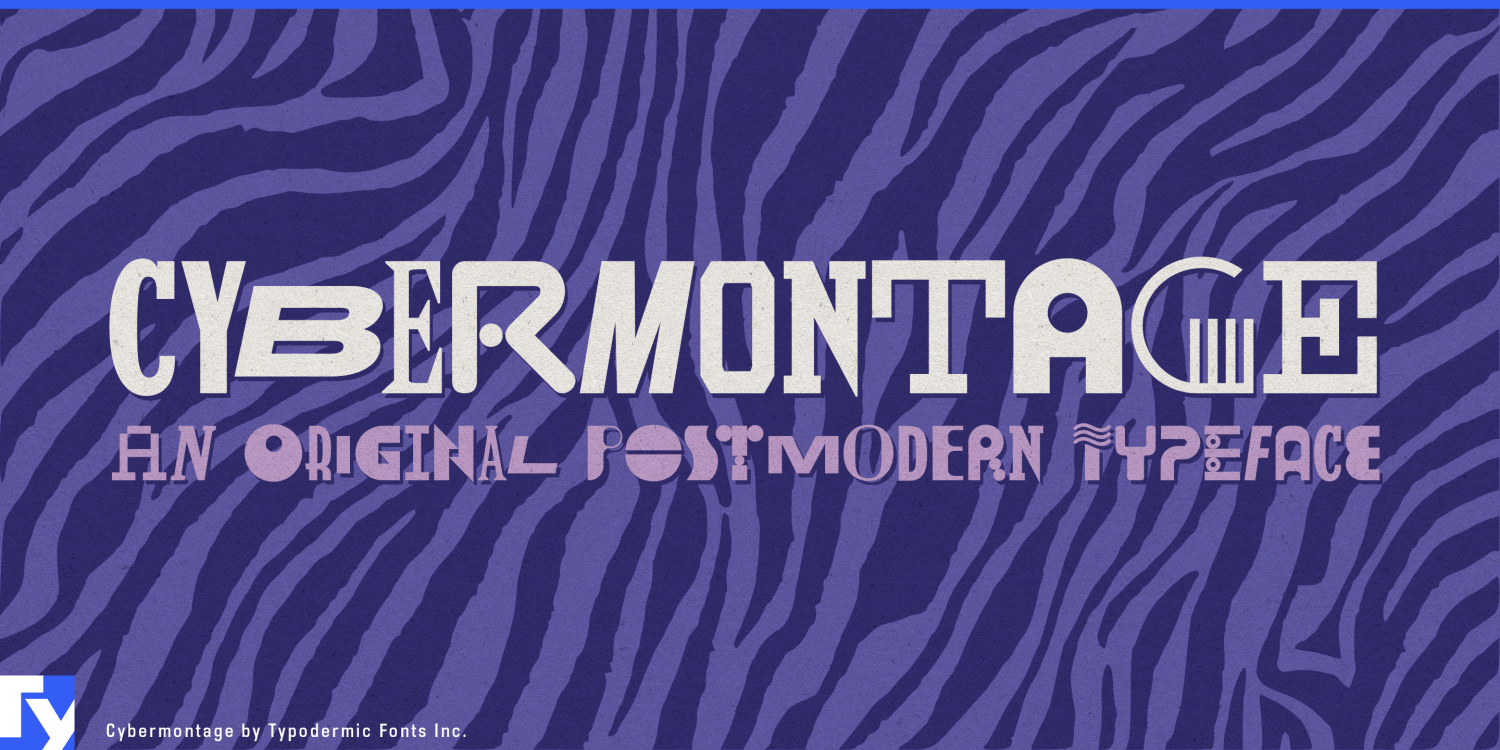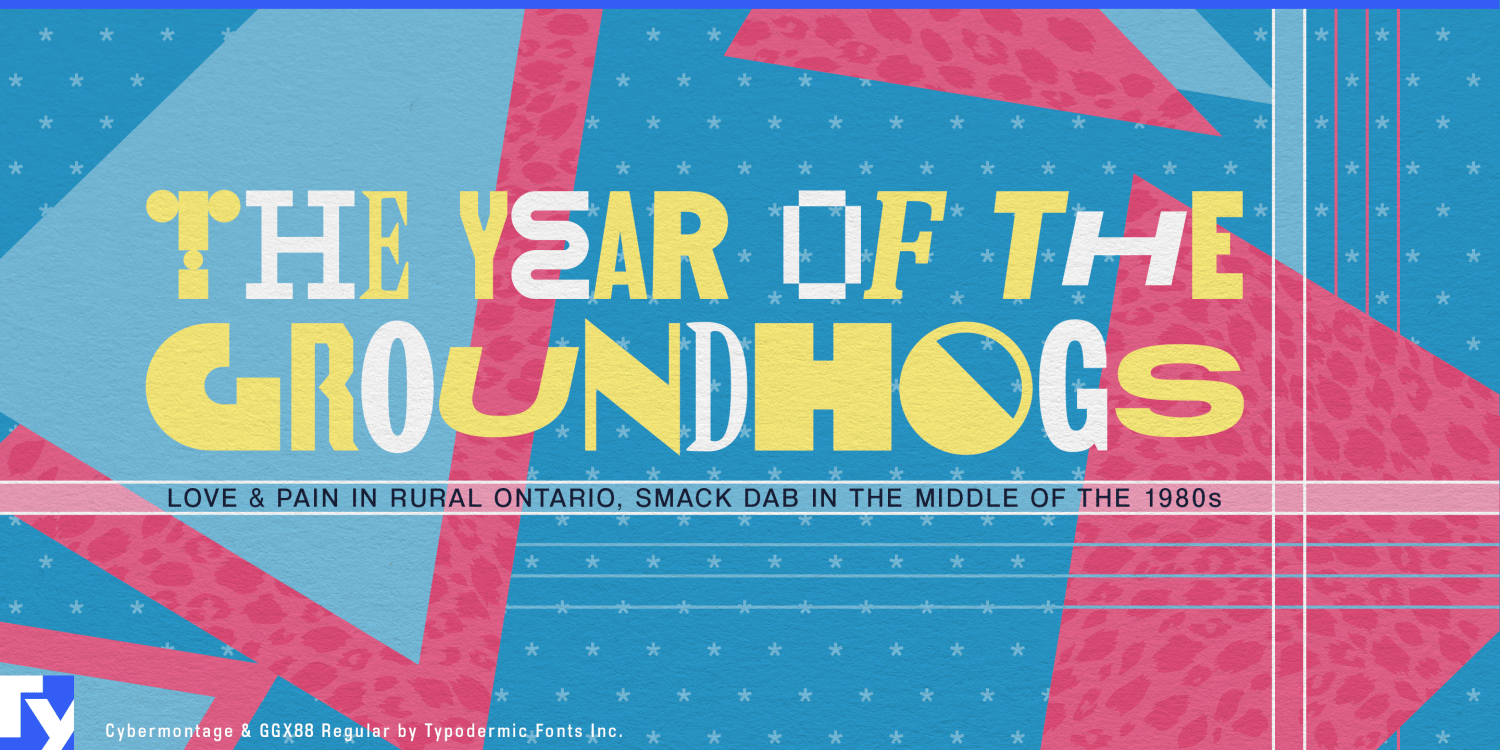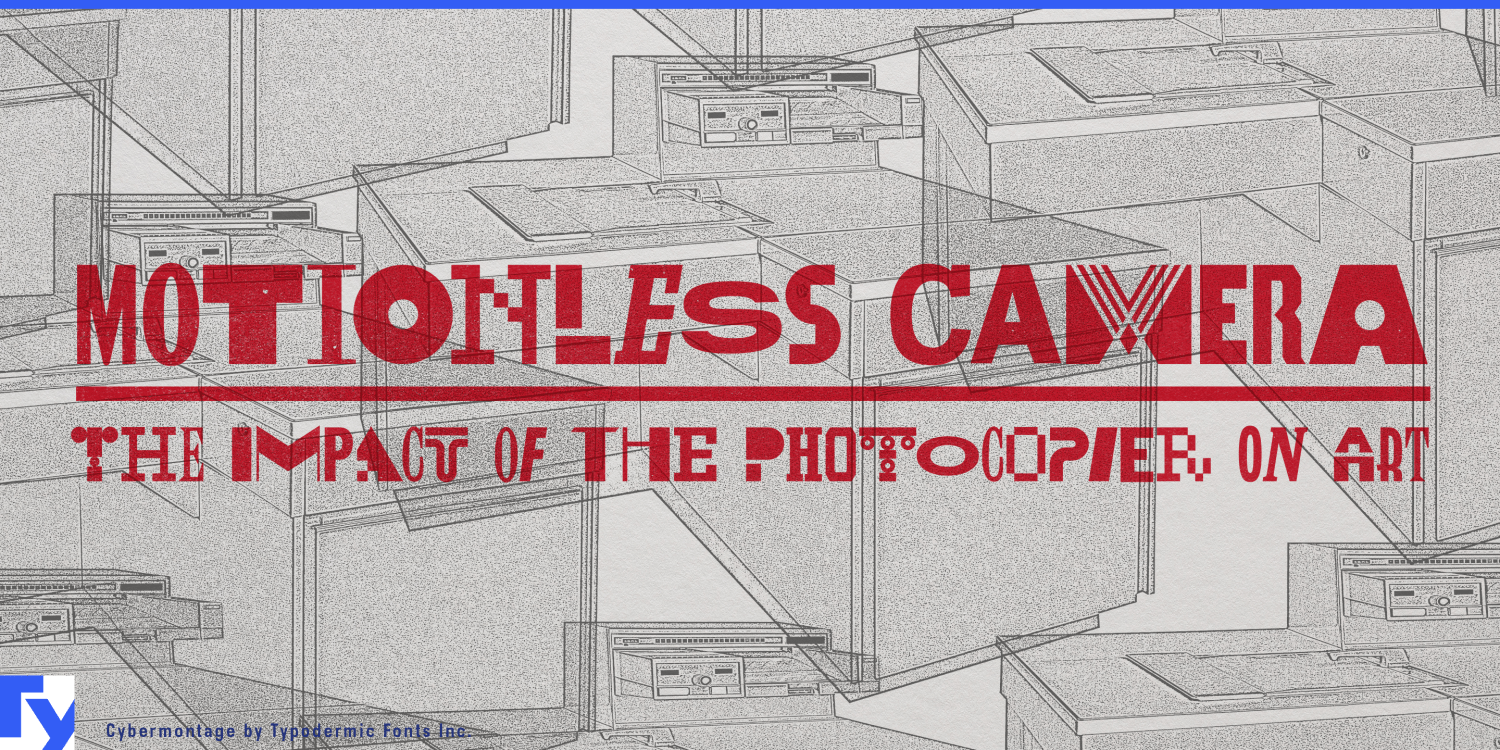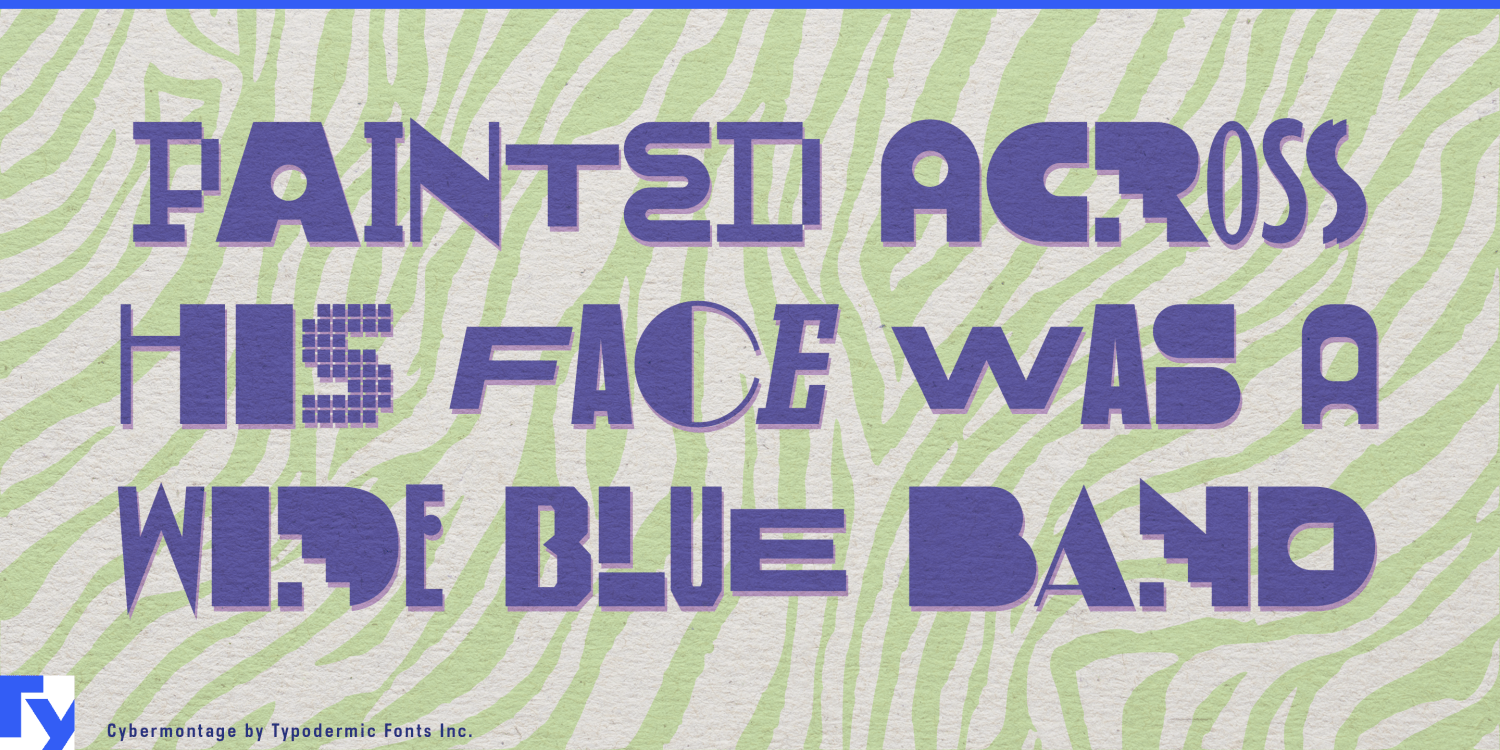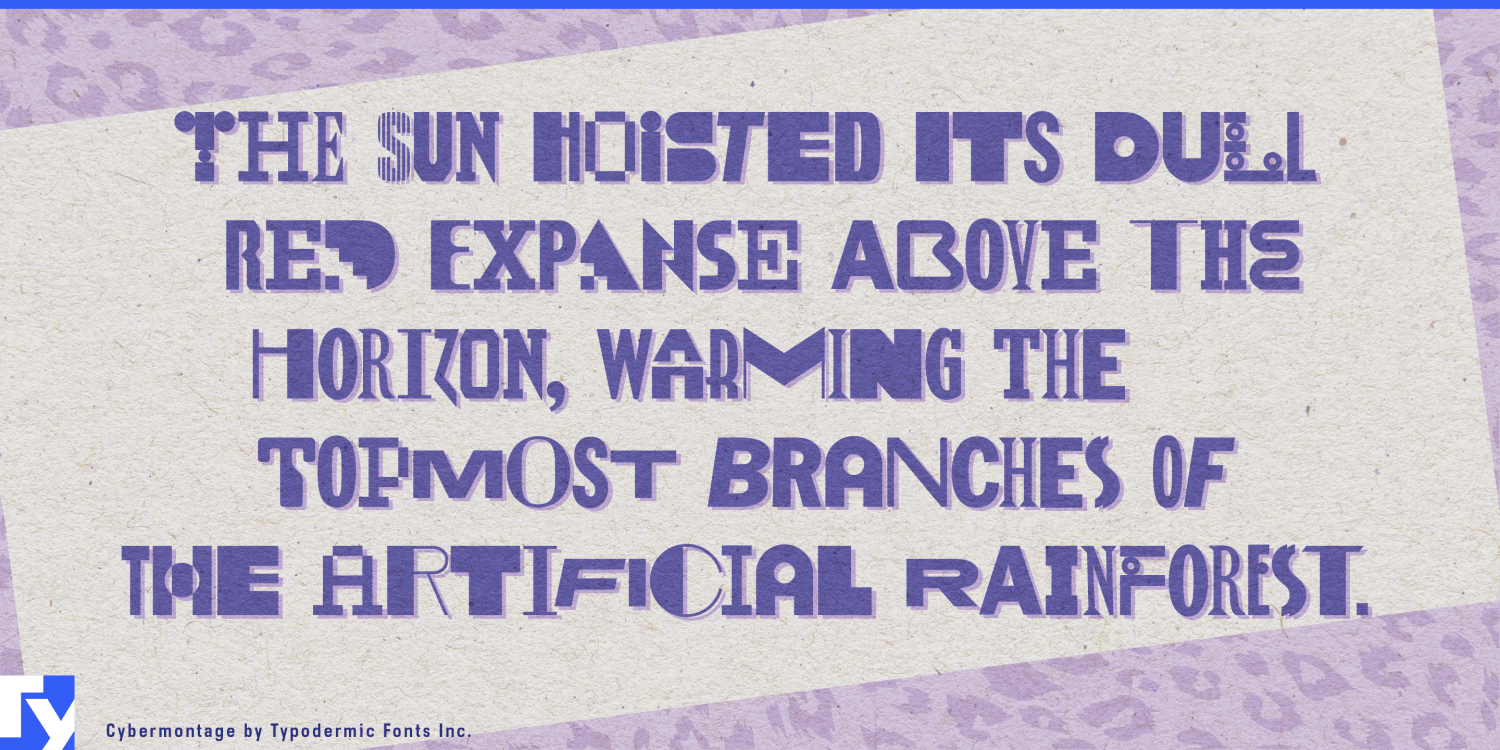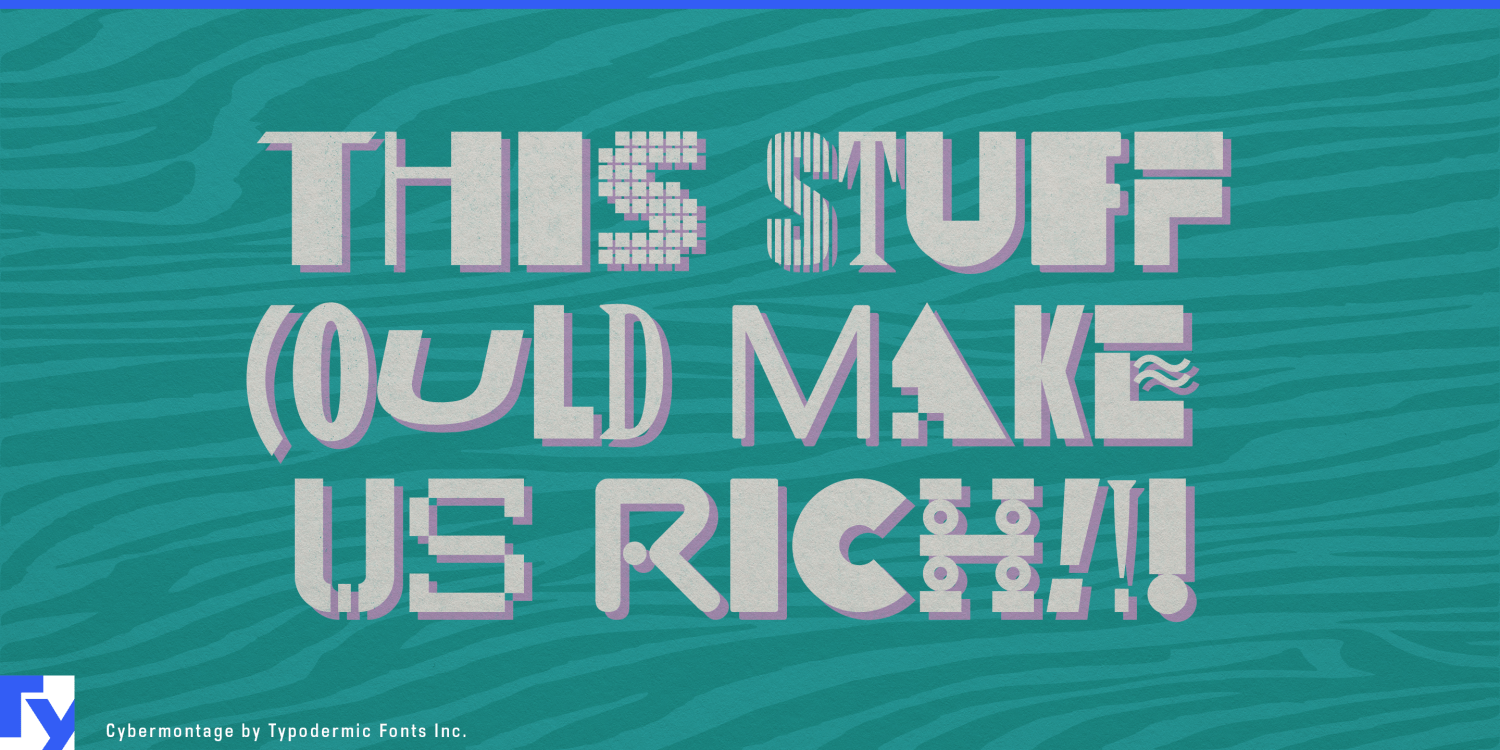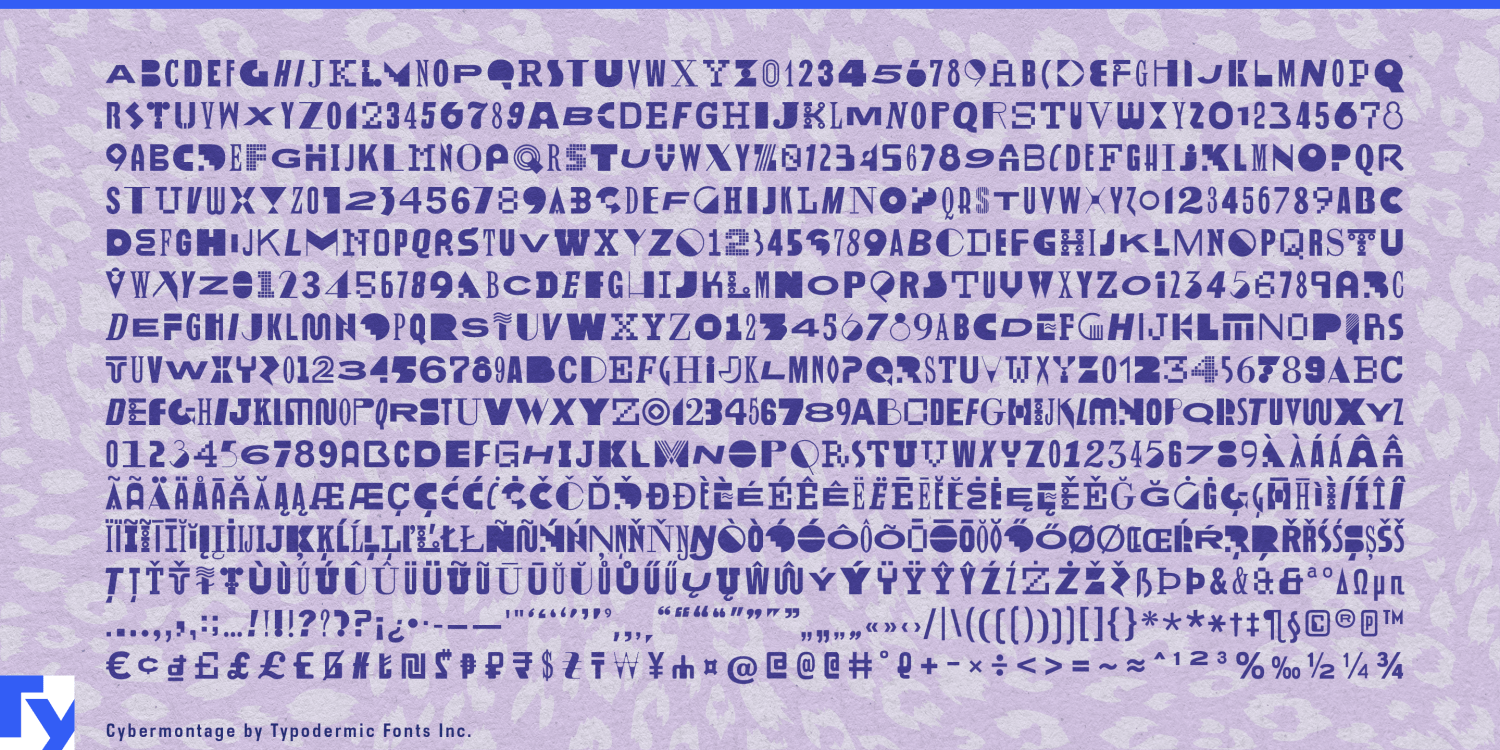
Cybermontage
Font Family by Typodermic
Strap in for a typographic joyride with Cybermontage, the postmodern display typeface that’s more than just letters—it’s a time-traveling design explosion. It’s a rebellious mash-up of 80s and 90s aesthetics that dares to ask, “Why choose one style when you can have them all?”
Cybermontage doesn’t just nod to retro—it stages a full-scale revival, complete with an eclectic fusion of campy colors, pristine geometric shapes, artfully torn paper edges, faux finishes that would make a chameleon jealous, and patterns so kitschy they circle back to cool. It’s like a typographic rave where Miami Vice meets Blade Runner, and everyone’s invited. But Cybermontage isn’t content with mere visual fireworks. It harnesses the power of OpenType technology to create a pseudorandomized glyph shuffle that’ll make your text look like it’s been through a design wormhole. Don’t fret if your app isn’t OpenType-savvy—you can still access all the character variations through the Unicode Private Use Area (PUA) encoding. It’s like having a secret typographic speakeasy right in your font menu.
Warning: Cybermontage’s character interconnections can get wilder than a cat in a roomful of laser pointers. For those moments when you need to rein in the chaos (but why would you?), activate optical kerning if your application supports it. It’s like giving your text a designated driver for the typographic party. And here’s the kicker: Cybermontage speaks more languages than a United Nations interpreter. Supporting over 100 Latin-based European writing systems, it’s ready to take its postmodern revolution global. Whether you’re designing a rave flyer in Romanian or a retro-futuristic magazine spread in Swahili, Cybermontage ensures your message maintains its electric energy across borders.
So, are you ready to defy typographic conventions and surf the waves of postmodern creativity? Embrace the chaos, celebrate the clash, and let Cybermontage be your guide to a world where every character is a work of art, and every word is an adventure. Download Cybermontage today and watch as your designs transform from mundane to mind-bending. Remember, in the universe of Cybermontage, there’s no such thing as too much—only “not enough yet.”